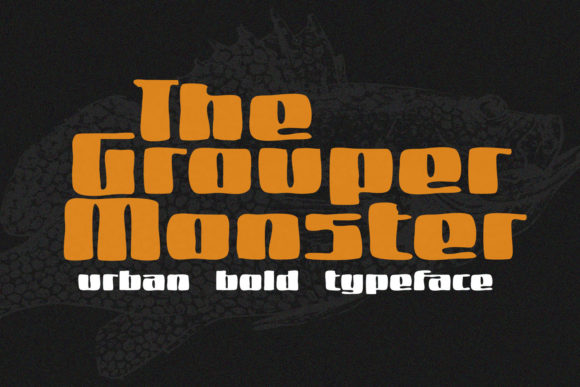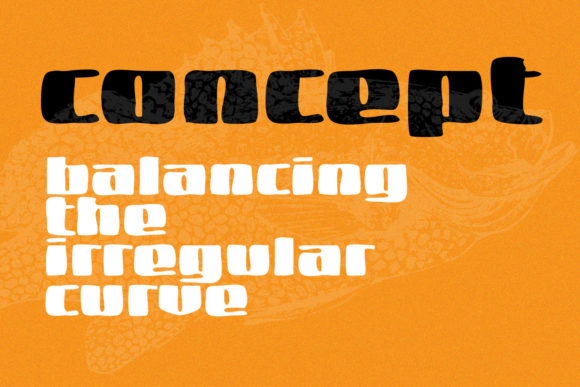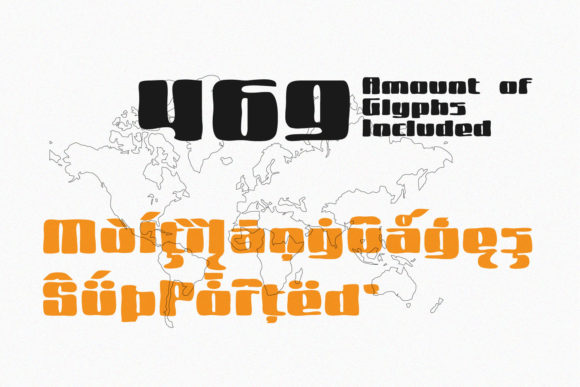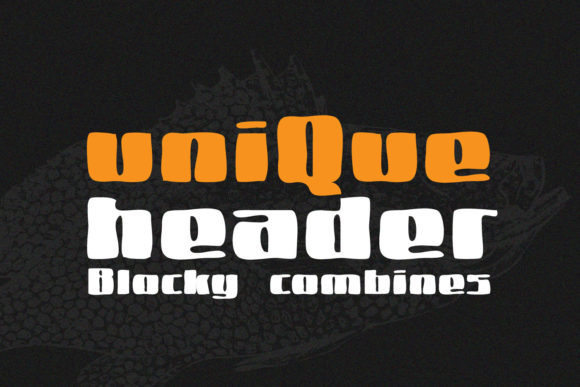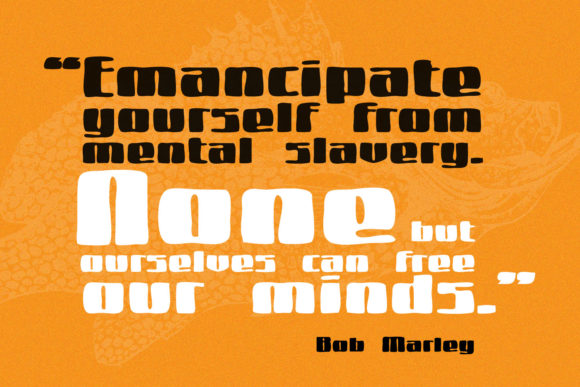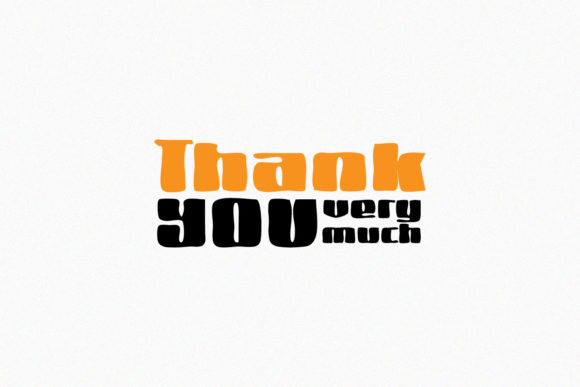
HomeScript FontsGrouper Monster Font Script Fonts Grouper Monster Font FacebookXPinterestWhatsApp Grouper Monster Font Poster 2 Grouper Monster Font Poster 3 Grouper Monster Font Poster 4 Grouper Monster Font Poster 5 Grouper Monster Font Poster 6 About Grouper Monster Font Grouper Monster is a bold script with attractive features. Get inspired by its unique style! DOWNLOAD ON CREATIVE FABRICAThis font is sold and delivered by Creative Fabrica. Font Canyon may earn a commission if you buy through this link. People also explored Hello Pumpkin Font Always Happy Font Graduation Ceremony Font Christmas Awaits Font Rainbow Vintage Font Burdock Font Christmas Chances Font Become Font Coconut Font 349 0 TagsGrouper Monster Font Previous articleCarmelia FontNext articleBrisely Font LEAVE A REPLY Cancel reply Comment: Please enter your comment! Name:* Please enter your name here Email:* You have entered an incorrect email address! Please enter your email address here Website: Save my name, email, and website in this browser for the next time I comment. Personal Use Free Font Slice Personal Use Free Read more about this font Boby Personal Use Free Read more about this font Foo Personal Use Free Read more about this font Motherblood Personal Use Free Read more about this font BLOG How to Cut Any Font on Cricut: Convert a Font to SVG (Free) Turn any font into a clean SVG so it cuts crisp on Cricut - a quick 3-step workflow using a free font-to-SVG tool. Exploring Font Trends Best Fonts for T-Shirt Design – Top 2025 Picks Using Fonts in Digital Marketing: Tips to Strengthen Your Brand Identity